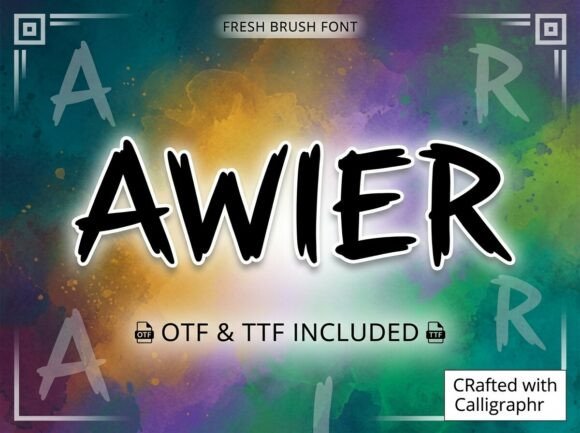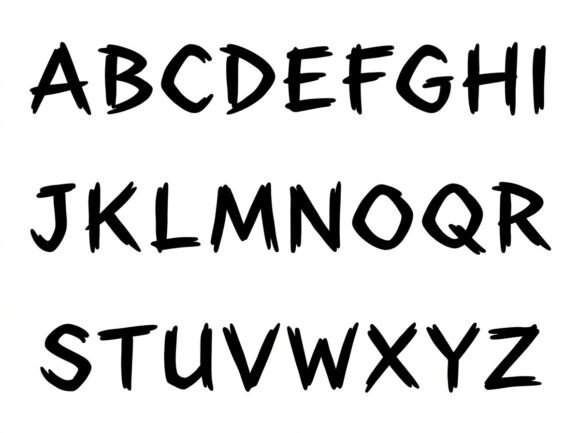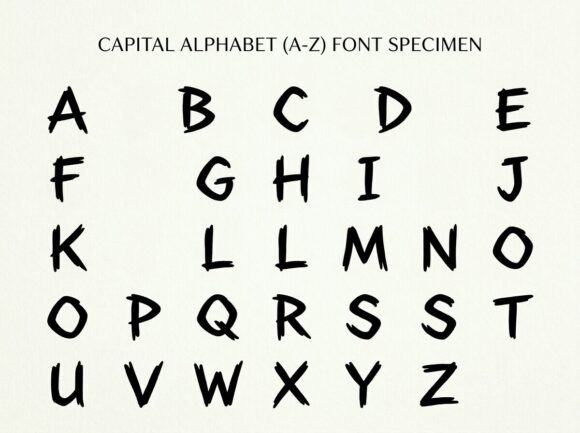
Unleashing Creativity with Awier Font
Have you ever stared at a blank canvas, wondering how to bring your most daring ideas to life? The thrill of creation is exhilarating, but sometimes it’s the perfect tool that makes all the difference. For designers seeking to push the boundaries of visual storytelling, we introduce the Awier Font, a game-changing display typeface engineered to command attention and inspire imagination.
With its avant-garde style and high-end finish, this All-Caps display typeface is the ultimate asset for creatives who refuse to blend in. Whether you’re crafting luxury packaging, designing conceptual posters, or building a brand identity, the Awier Font is the perfect companion to elevate your work to new heights.
Awier Font Key Features
- Unique Characteristics: Awier Font features a unique, hand-drawn design with a mix of modern and vintage elements, making it perfect for creative projects and branding.
- Font Family: The font family consists of 6 weights, from Light to Black, providing users with a range of options for varying text styles and emphasis.
Review: Awier Font
Overall, I have mixed feelings about the Awier Font. Let’s break it down.
- Unique Design: The Awier Font has a distinctive and quirky design that sets it apart from other fonts.
- Good for Titles: The font is particularly well-suited for titles and headings, as its bold and playful nature makes it perfect for grabbing attention.
- High Legibility: Despite its unconventional design, the Awier Font is surprisingly legible, making it easy to read for extended periods.
- Limited Versatility: While the Awier Font excels at grabbing attention, it may not be the best choice for body text or paragraphs, as its boldness can be overwhelming.
- Not Suitable for Small Text: Due to its unique design, the Awier Font may not be ideal for small text or captions, as its letters can become difficult to read.
The Awier Font is a bold and attention-grabbing font that excels at titles and headings. However, its limitations in terms of versatility and suitability for small text may make it less desirable for certain projects. With some careful consideration, the Awier Font can be a great addition to your design toolkit.
Getting the Most Out of Awier Font
For best results, pair the Awier font with a clean and simple design aesthetic. Avoid using it with overly complex or cluttered backgrounds, as this can detract from the font’s unique features. Experiment with different font sizes and colors to achieve the desired visual impact.
The Awier font is well-suited for use in modern branding, digital products, and creative projects. It’s particularly effective for headings, titles, and short paragraphs where a unique and eye-catching font is desired.
Alternatives to Awier Font for Designers
Open Sans is a clean and modern sans-serif font. It’s ideal for digital interfaces, websites, and mobile apps where readability is crucial. Open Sans has a more neutral and straightforward feel compared to Awier Font, which has a slightly more playful and creative vibe.
Lato is a sans-serif font with a strong and clean appearance. It’s perfect for use in branding, advertising, and editorial content where a professional look is required. Lato is more elegant and refined than Awier Font, making it a great choice for formal designs.